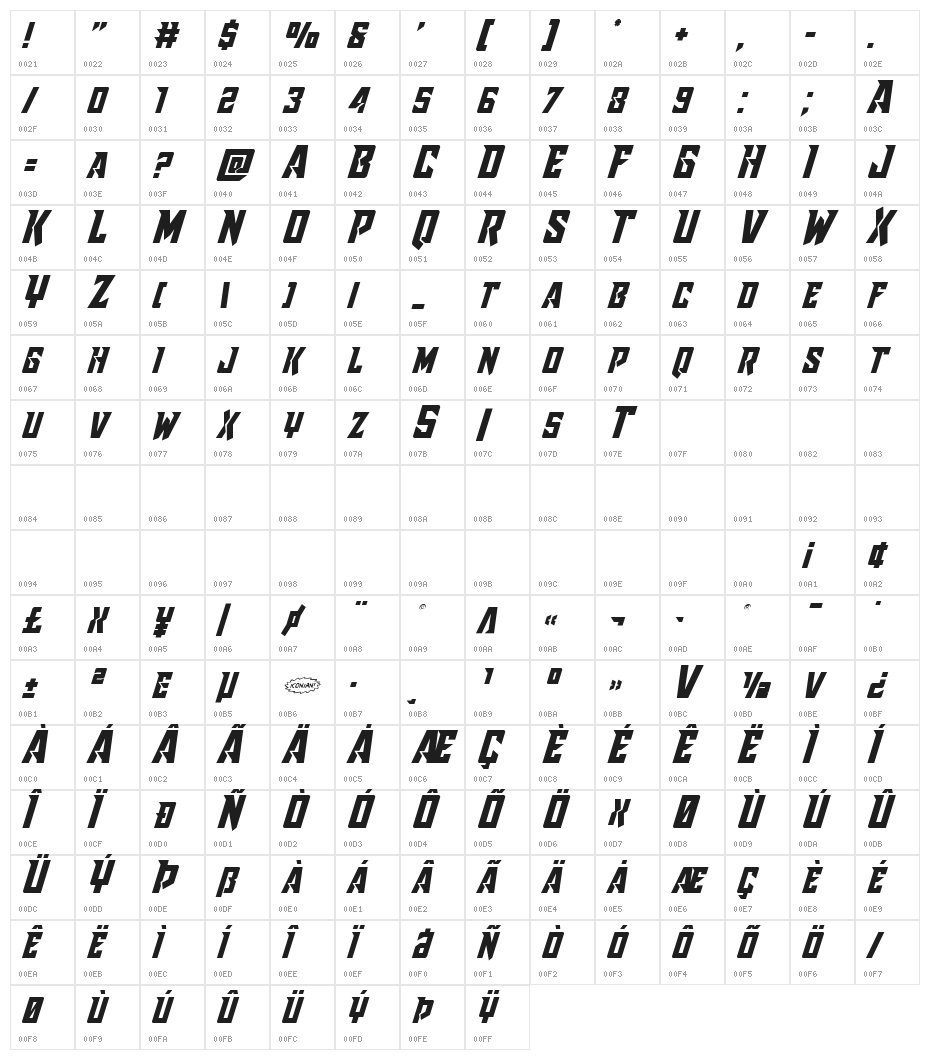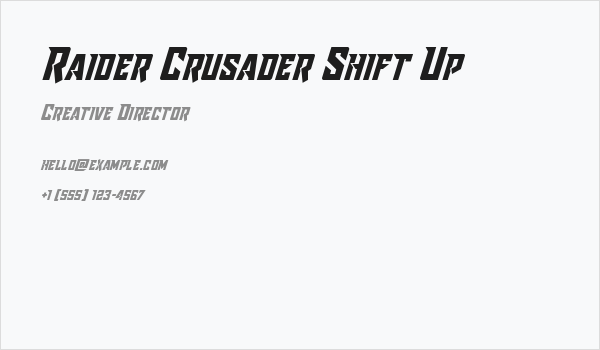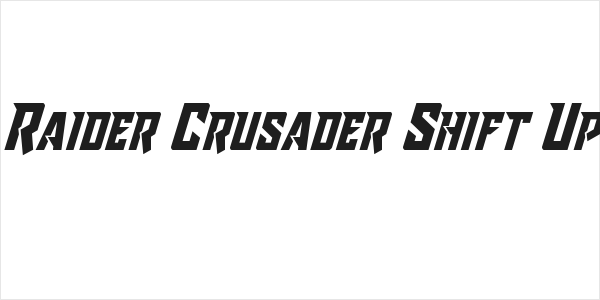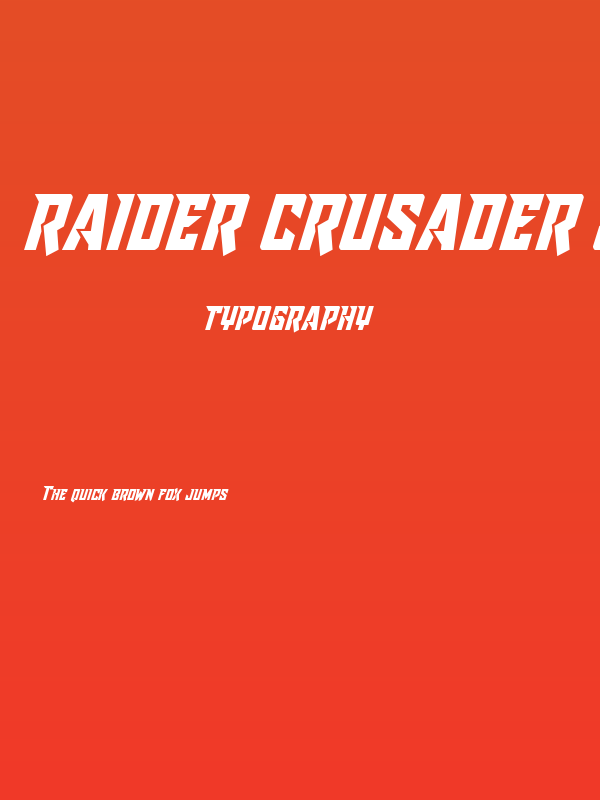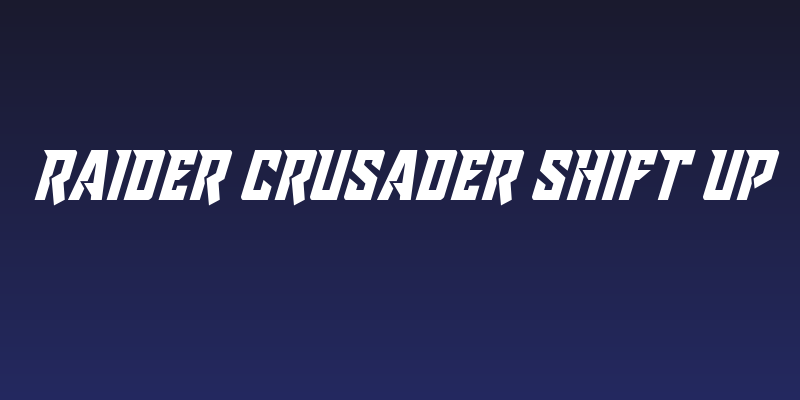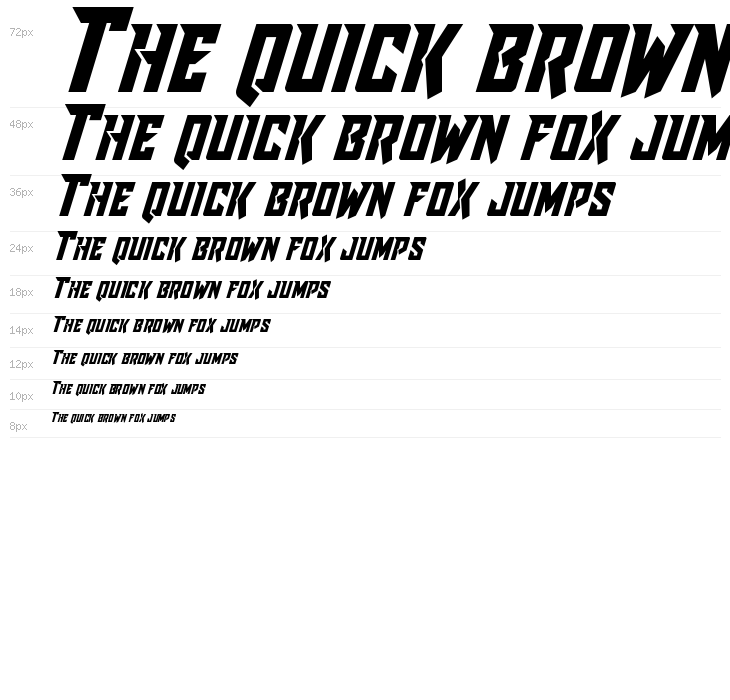
Raider Crusader Shift Up Font
Raider Crusader Shift Up Description
This font features a bold, angular design with a strong, dynamic presence. The characters are sharply cut with a futuristic and aggressive style, making it stand out with its unique geometric shapes. The uppercase and lowercase letters maintain a consistent style, with a slight slant that adds a sense of motion and energy. The numbers and special characters follow the same bold and angular aesthetic, ensuring a cohesive look across all elements. This font is ideal for projects that require a strong visual impact and a modern, edgy feel.
| Proposed Projects | Ideal for sports branding, video game titles, posters, and any project needing a strong, modern impact. |